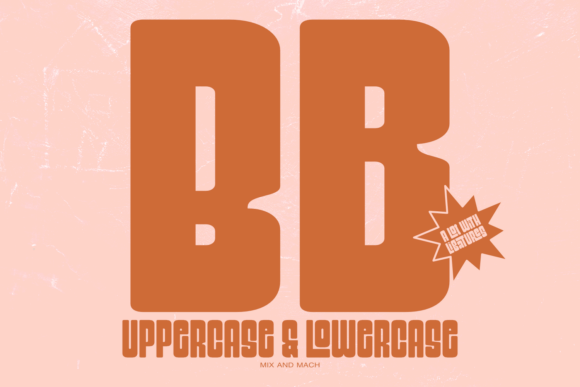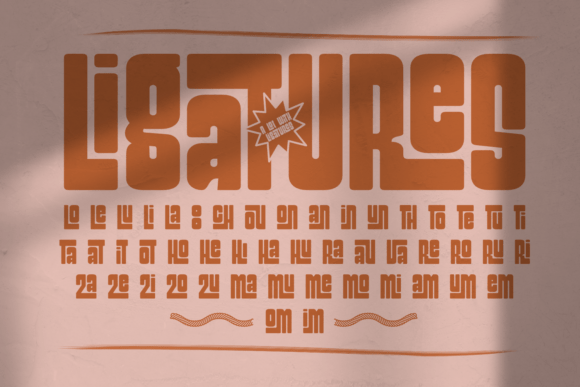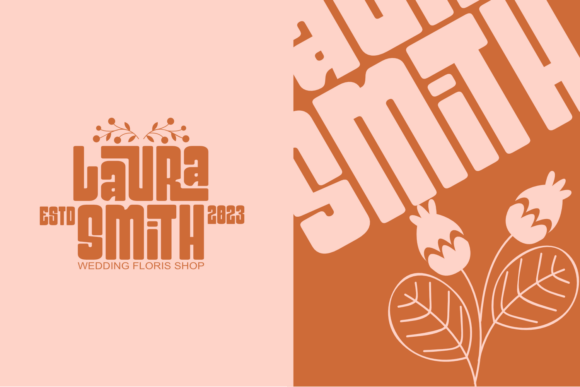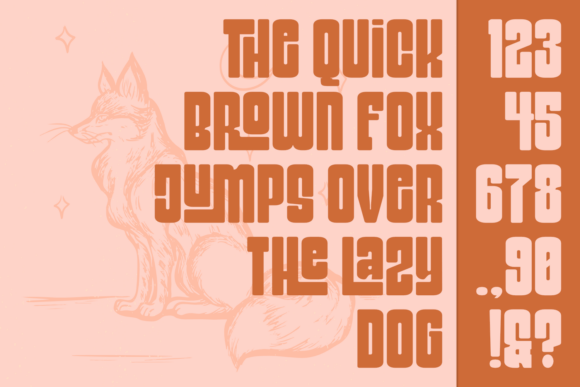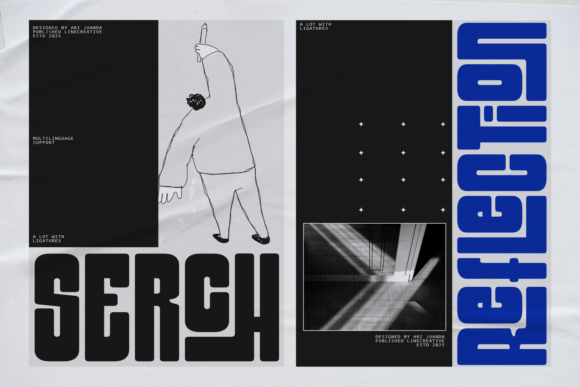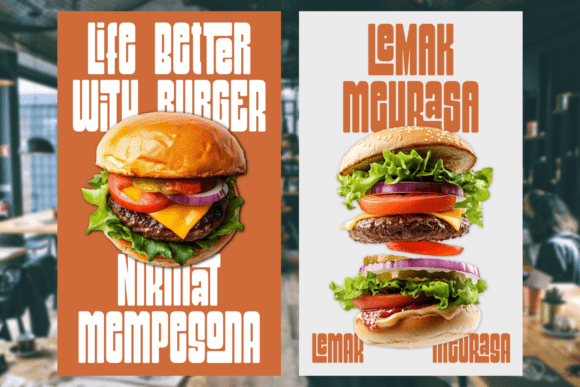
Introduction to Lebiem Font
As a designer, there’s no feeling quite like the thrill of bringing a creative project to life. It’s that moment when all the elements come together – color, texture, typography – and suddenly, your vision takes shape. For me, it’s often the font that sets the tone, and that’s where Lebiem Font comes in. With its bold condensed form and rounded corners, this versatile font adds a touch of approachability to even the most ambitious designs.
Whether you’re working on a high-quality design resource or a simple logo, Lebiem Font offers the perfect balance of strength and friendliness. Its unique combination of thick upper and lower sides gives it a sense of firmness and authority, making it an excellent choice for designers looking to make a statement. And with ligature characters at your disposal, you can add a touch of personality to your creative projects.
Key Features of Lebiem Font
- Lebiem Font features a unique, modern design with elegant lines and subtle nuances.
- Perfect for use in logos, branding materials, and other creative projects where a sophisticated, high-end look is desired.
Honest Review: Lebiem Font
I recently stumbled upon the Lebiem Font and I must say, it’s a great addition to any designer’s library. This font is perfect for creative projects that require a touch of elegance and sophistication. One of the standout features of the Lebiem Font is its high quality and versatility.
- Only a few font weights are available, which may limit its usage in certain projects
- No bold or italic variations are available
- May not be suitable for projects that require a lot of bold text
Getting the Most Out of Lebiem Font
The Lebiem Font is suitable for various design projects, including:
- Typography-based designs